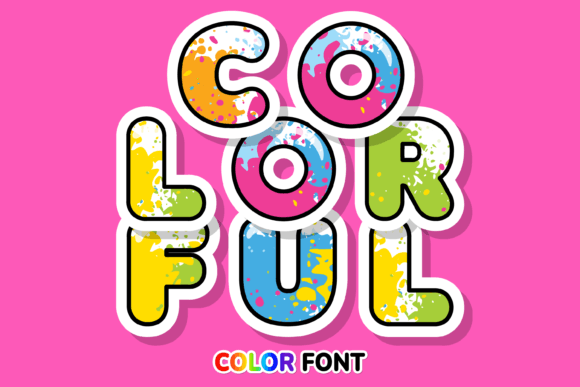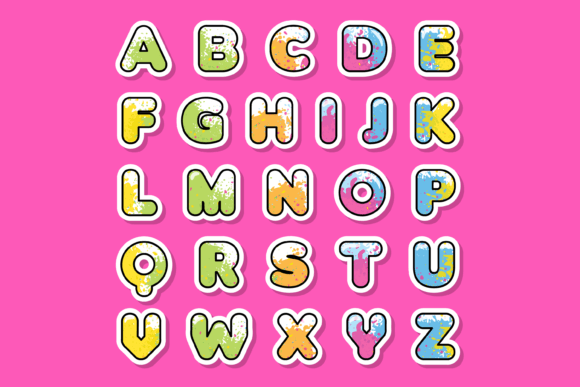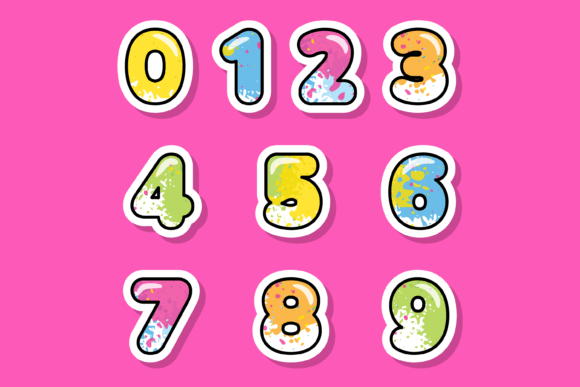
Colorful Font
Colorful is an incredibly cool and vibrant color font designed in the style of Splatter. With its eye-catching and dynamic appearance, this font is perfect for a wide range of design projects, including custom designs, DIY crafts, and any creation that requires a touch of creativity.
The unique splatter style of Colorful font adds a sense of energy and playfulness to your designs. Its colorful and vibrant lettering instantly grabs attention and makes a bold statement. Whether you’re designing posters, flyers, logos, or social media graphics, Colorful font will enhance your creations and make them truly stand out.
The versatility of Colorful font allows you to explore various applications. You can use it for custom designs such as personalized t-shirts, bags, or accessories, adding a unique and artistic touch to your creations. DIY crafts like handmade cards, scrapbooking, or party decorations can also benefit from the lively and expressive nature of Colorful font.
When it comes to digital designs, Colorful font can be a powerful tool for creating visually engaging content. Whether you’re designing website headers, blog graphics, or social media posts, the font’s splatter style brings a sense of excitement and creativity to your visuals. It’s a great choice for projects that require a lovely touch and a vibrant color palette.
Let your imagination run wild with Colorful font. Explore its vibrant colors, expressive splatter style, and endless possibilities to create stunning and captivating designs. Whether you’re working on personal projects, DIY crafts, or professional designs, Colorful font will be an excellent choice to add that lovely touch and make your creations shine.